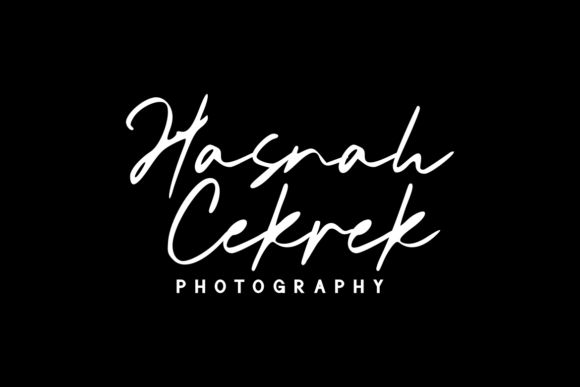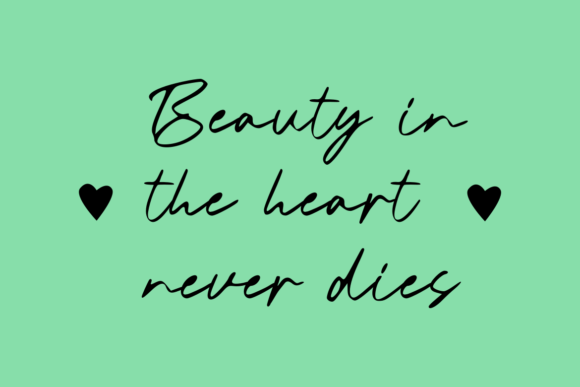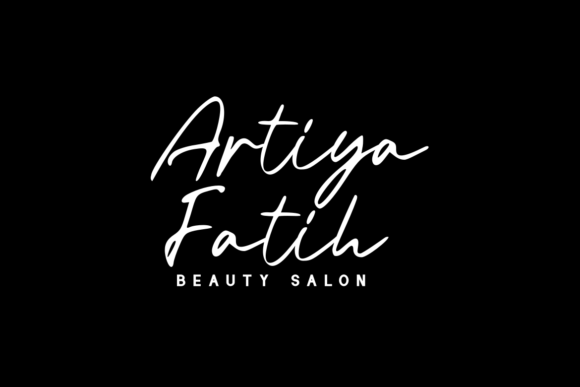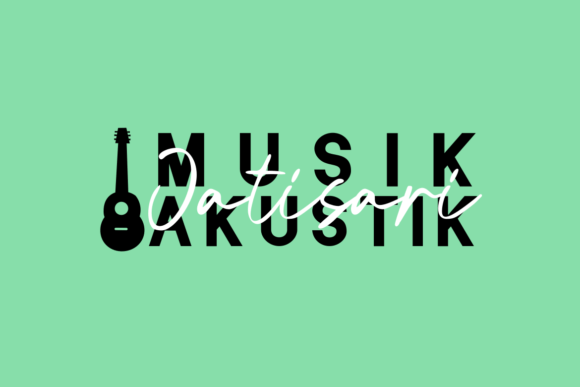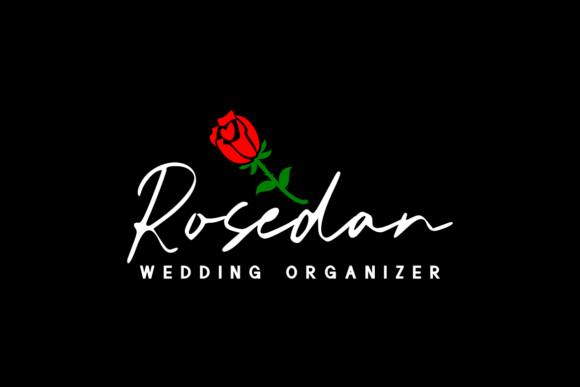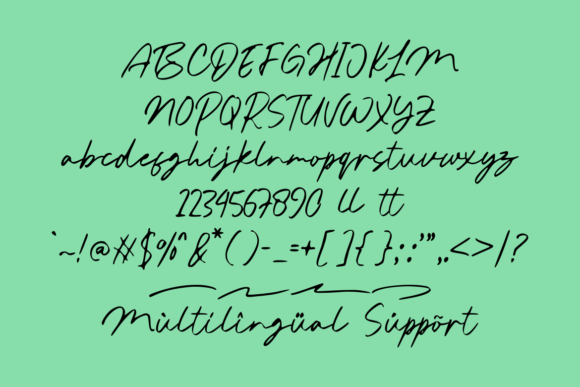
Bakol Gedang Font: Add a Touch of Whimsy to Your Designs
In the world of typography, fonts play a crucial role in conveying the tone and personality of a design. If you’re looking for a font that adds a touch of whimsy and natural charm to your projects, look no further than Bakol Gedang. This quirky handwritten font is perfect for designers and crafters who want to bring a unique and personal touch to their work.
What is Bakol Gedang Font?
Bakol Gedang is a carefully crafted handwritten font that is designed to bring out the natural characteristics of your project. With its irregularities and imperfections, this font has a distinctly human feel that sets it apart from more traditional fonts. Whether you’re working on a website, logo, invitation, or any other design project, Bakol Gedang is the perfect choice for adding a touch of personality and whimsy.
Characteristics of Bakol Gedang Font
So, what makes Bakol Gedang font so special? Here are just a few of its key characteristics:
- Handwritten with love: Bakol Gedang is a truly handmade font, crafted with care and attention to detail to ensure that every letter and character is unique and full of personality.
- Natural and imperfect: Unlike more traditional fonts, Bakol Gedang has a delightfully imperfect feel that makes it perfect for designs that need a touch of whimsy and charm.
- Versatile: Whether you’re working on a website, logo, invitation, or any other design project, Bakol Gedang is the perfect choice for adding a touch of personality and style.
Uses for Bakol Gedang Font
So, what can you use Bakol Gedang font for? The possibilities are endless! Here are just a few ideas to get you started:
- Websites: Add a touch of personality to your website with Bakol Gedang font. Perfect for blogs, portfolios, and e-commerce sites.
- SVG designs: Bakol Gedang font is perfect for use in SVG designs, from cut files to iron-on transfers.
- Home decor: Use Bakol Gedang font to add a personal touch to your home decor, from wall art to signs and banners.
- Branding: Establish your brand’s personality with Bakol Gedang font. Perfect for logos, business cards, and letterheads.
- Blogs: Add a touch of whimsy to your blog with Bakol Gedang font. Perfect for bloggers who want to stand out from the crowd.
- Logos: Create a unique and memorable logo with Bakol Gedang font. Perfect for businesses, products, and services.
- Invitations: Make your invitations truly special with Bakol Gedang font. Perfect for weddings, birthdays, and other celebrations.
Why Choose Bakol Gedang Font?
So, why should you choose Bakol Gedang font for your next design project? Here are just a few reasons:
- Unique and distinctive: Bakol Gedang font is truly one-of-a-kind, ensuring that your design stands out from the crowd.
- Easy to read: Despite its irregularities, Bakol Gedang font is surprisingly easy to read, making it perfect for body text and headlines.
- Highly versatile: Bakol Gedang font can be used for a wide range of design projects, from digital designs to print materials.
In conclusion, Bakol Gedang font is a quirky and charming handwritten font that is perfect for designers and crafters who want to add a touch of personality and whimsy to their work. With its natural and imperfect feel, Bakol Gedang font is highly versatile and can be used for a wide range of design projects. Whether you’re working on a website, logo, invitation, or any other design project, Bakol Gedang font is the perfect choice for adding a touch of style and personality.